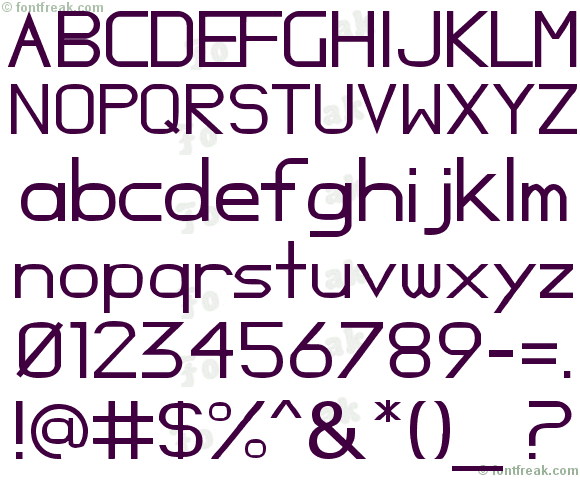
Opossum
About Opossum
Introducing the Opossum font by Tepid Monkey Fonts, a striking display typeface that combines playful charm with bold simplicity. This freeware font falls into the category of display fonts, making it ideal for grabbing attention in various design projects. The visual characteristics of Opossum are defined by its unique stroke weight, which exhibits a consistent thickness that enhances readability while maintaining a fun aesthetic. The clean lines and minimal contrast contribute to a modern look, making it versatile for multiple applications.
Opossum shines in several use cases, particularly in areas where creativity and engagement are paramount. It's perfect for movie posters, where its eye-catching design can draw viewers in. Additionally, this font works wonderfully for restaurant menus, giving a fresh and inviting feel to the dining experience. The playful nature of Opossum also makes it suitable for children's book covers or educational materials, where a sense of fun and approachability is essential. Graphic designers and content creators will find this font particularly appealing, as it allows for a unique expression in their work.
Small business owners looking to create memorable branding elements will also benefit from incorporating Opossum into their marketing materials. The font’s distinctive style lends itself well to logos, flyers, and social media graphics, ensuring that any message stands out in a crowded marketplace.
In conclusion, the Opossum font offers a unique blend of personality and functionality, making it a standout choice for diverse design needs. Its ability to convey fun and creativity while remaining easily readable sets it apart from other display fonts. Don’t miss the chance to enhance your projects with this delightful typeface—Opossum font free download is available now for your creative endeavors.